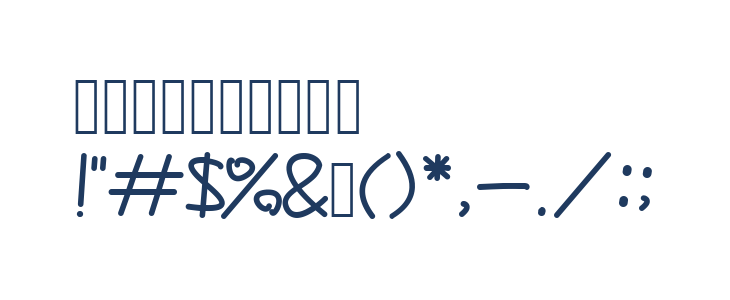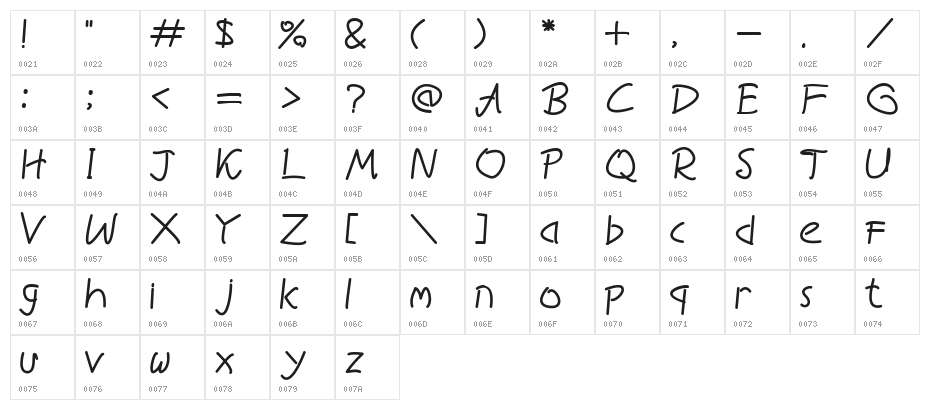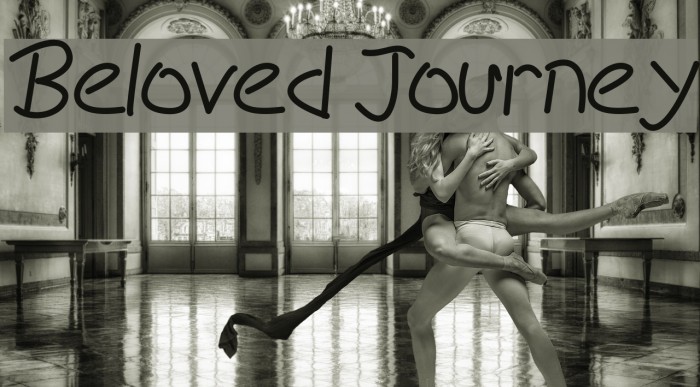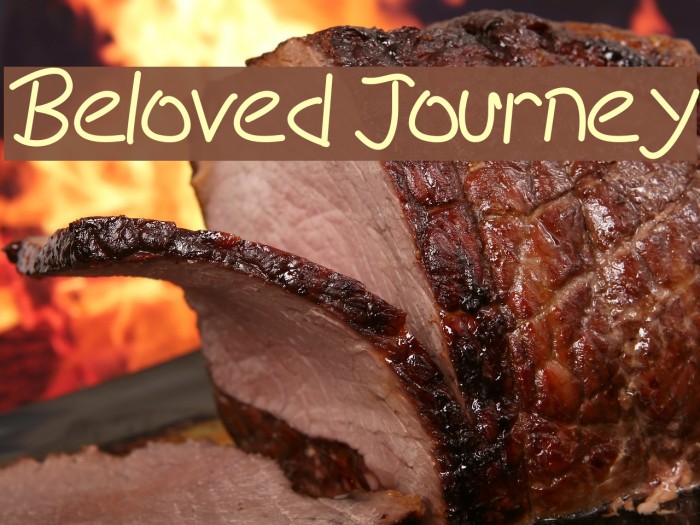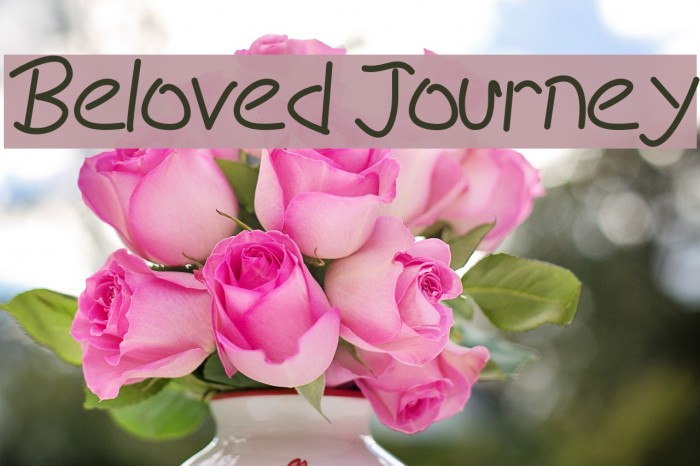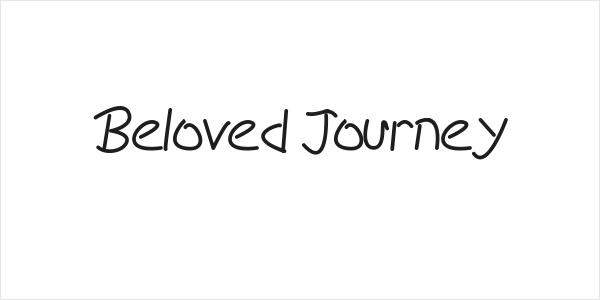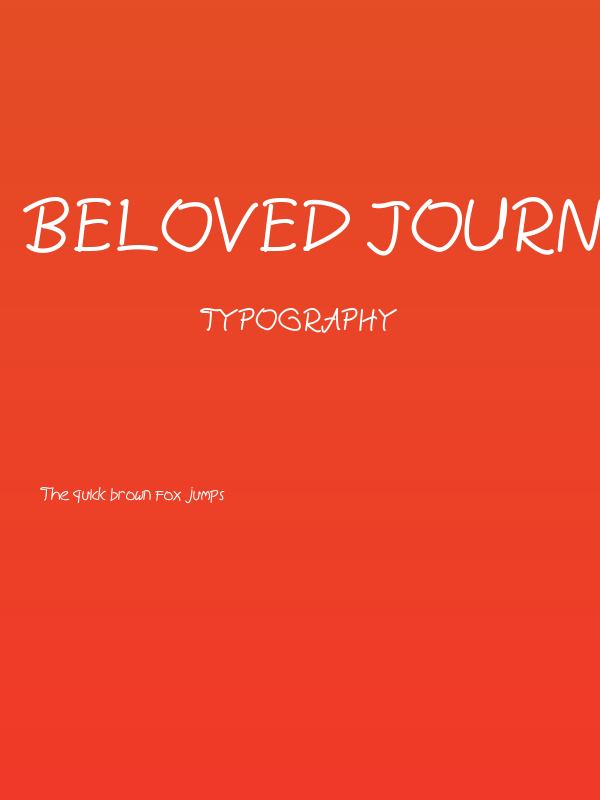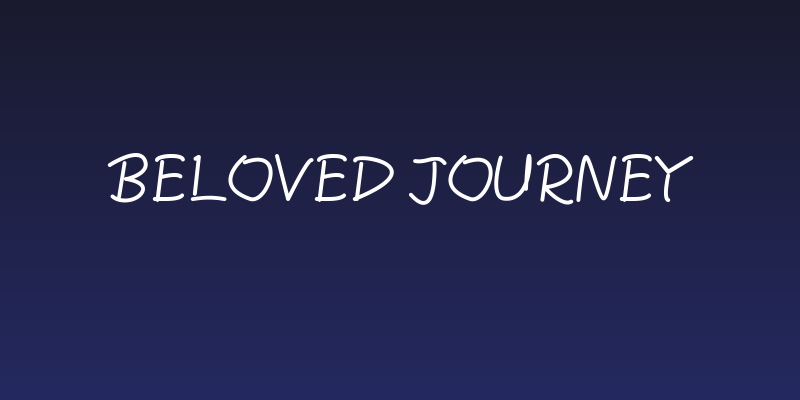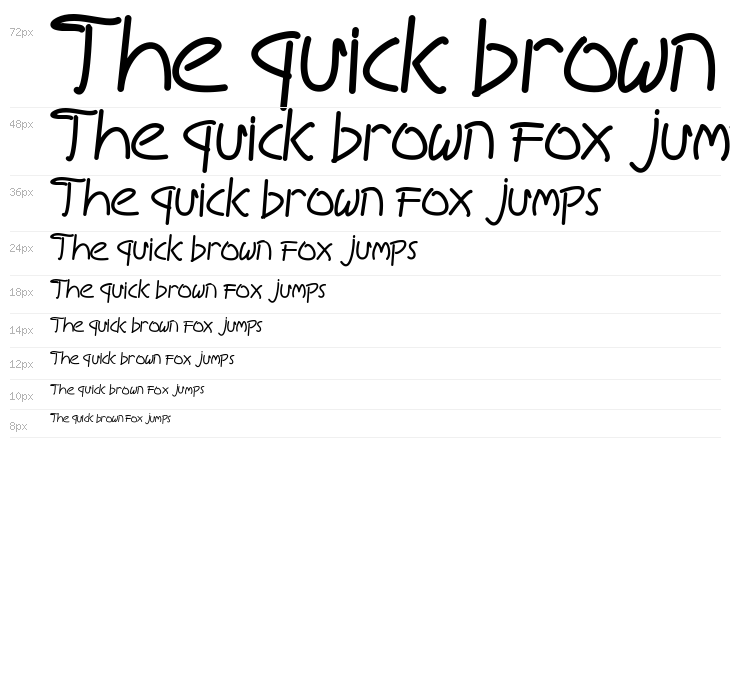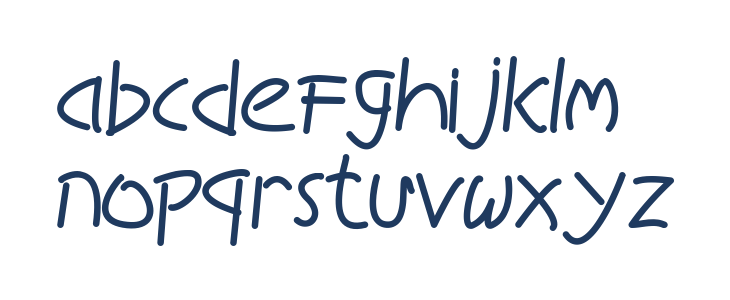
Beloved Journey Font
Beloved Journey Description
This font features a playful and casual handwritten style, characterized by its smooth curves and slightly irregular strokes that give it a personal touch. The uppercase letters are bold and slightly slanted, adding a dynamic feel, while the lowercase letters maintain a consistent flow with rounded edges. The numerals and special characters follow the same playful aesthetic, making the font versatile for various creative projects. Its overall appearance is friendly and approachable, suitable for conveying warmth and personality.
Overall StyleCasual, Playful
Use CaseHeadlines, Logos, Invitations
Proposed ProjectsIdeal for greeting cards, invitations, personal branding, and creative social media graphics.